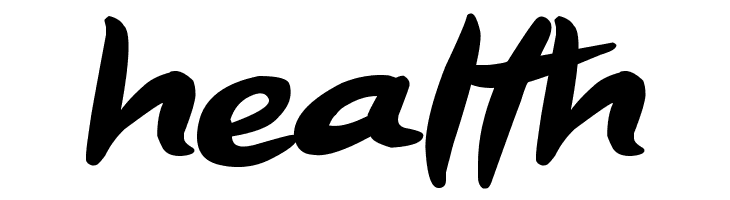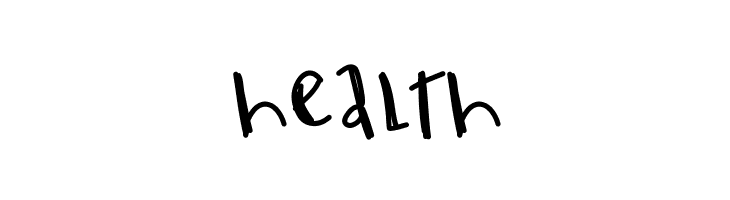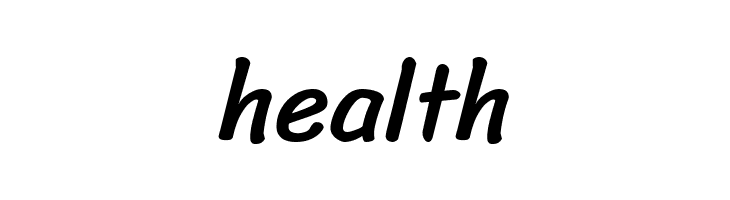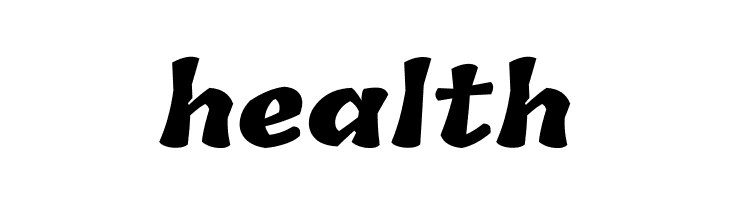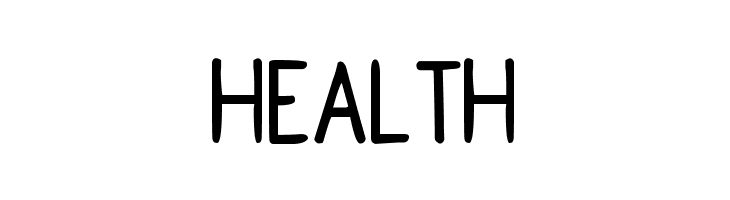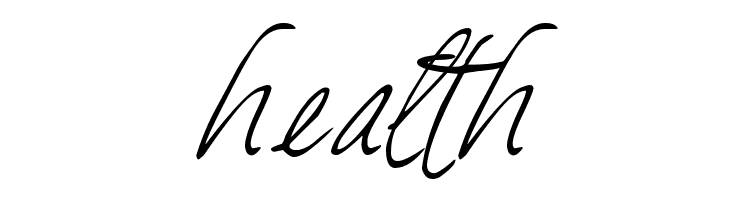
A playful, handwritten font with bold, irregular strokes and a lively appearance.
A lively, handwritten script font with smooth, rounded strokes and a playful touch.
A bold, playful handwritten-style font with rounded characters.
A lively, handwritten-style font with smooth, fluid strokes and moderate contrast.
A bold, playful font with a handwritten, dynamic style.
A lively and dynamic semi-bold script font with smooth curves and a playful appearance.
A lively, modern script font with a playful yet sophisticated style.
A playful, handwritten font with a lively bounce and smooth, rounded characters.
A lively, handwritten cursive font with a playful and dynamic style.